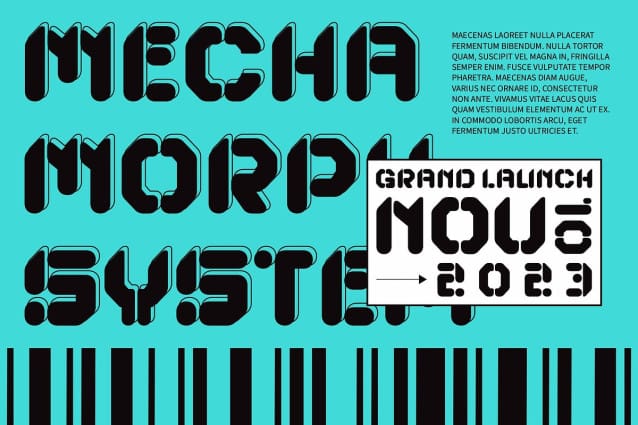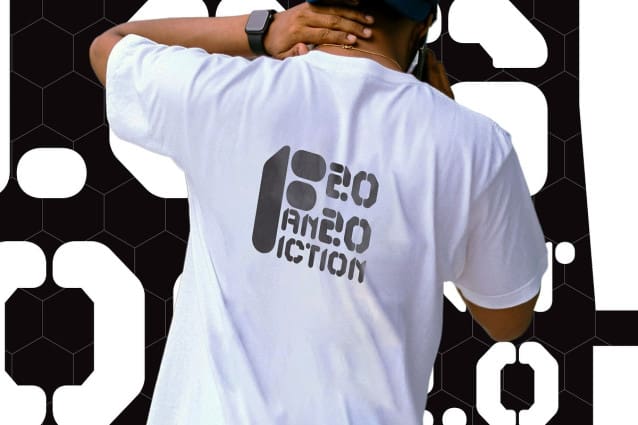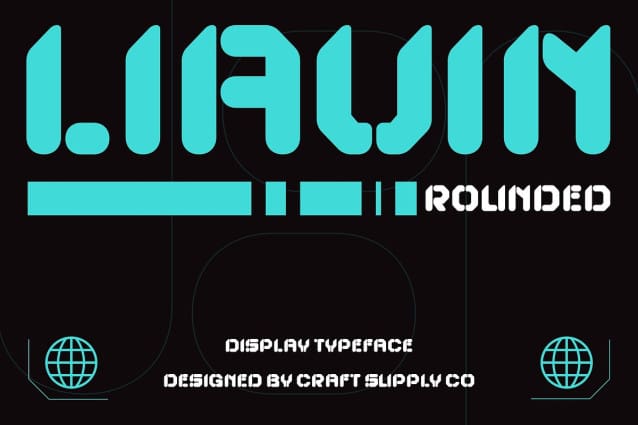
Liavin Rounded Font
Liavin Rounded Font is a modern display font that seamlessly merges a futuristic design with rounded elegance. Its avant-garde shapes deliver a cutting-edge, innovative look, while the rounded edges introduce a sense of warmth and readability. This harmonious blend creates a font that exudes a forward-thinking, futuristic vibe, making it perfect for a range of contemporary applications.
Ideal for Future-Themed Projects The sleek and modern design of Liavin Rounded is ideal for technology branding, digital interfaces, and innovative promotional materials. Its futuristic form ensures a visually striking appearance, while the rounded details add a touch of approachability and ease of use. This combination delivers a fresh, cutting-edge look that aligns perfectly with the latest trends in design and technology.
Versatile and Forward-Looking Liavin Rounded stands out with its unique ability to balance modern sophistication with a friendly, rounded style. Whether used in tech-focused branding, digital user interfaces, or progressive promotional materials, this font provides a dynamic and contemporary appearance. Its sleek lines and soft curves make it a versatile choice for projects that aim to present a forward-looking and innovative impression.